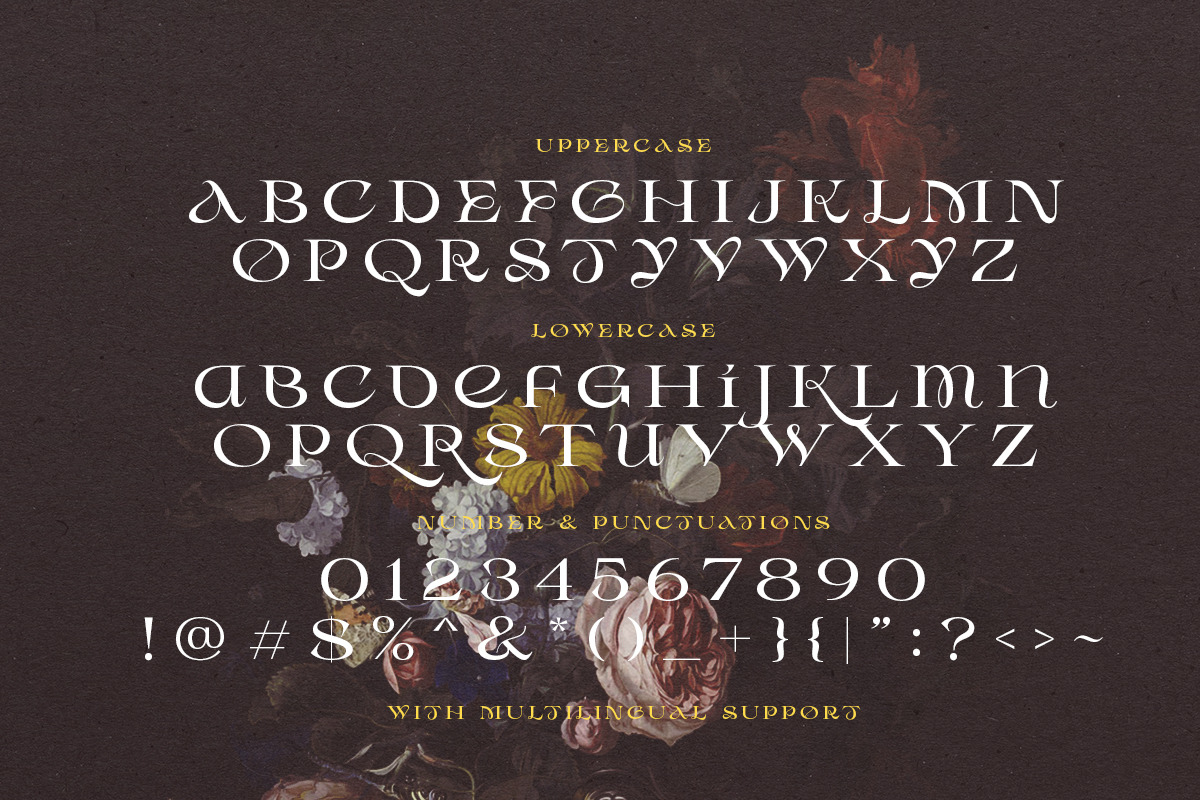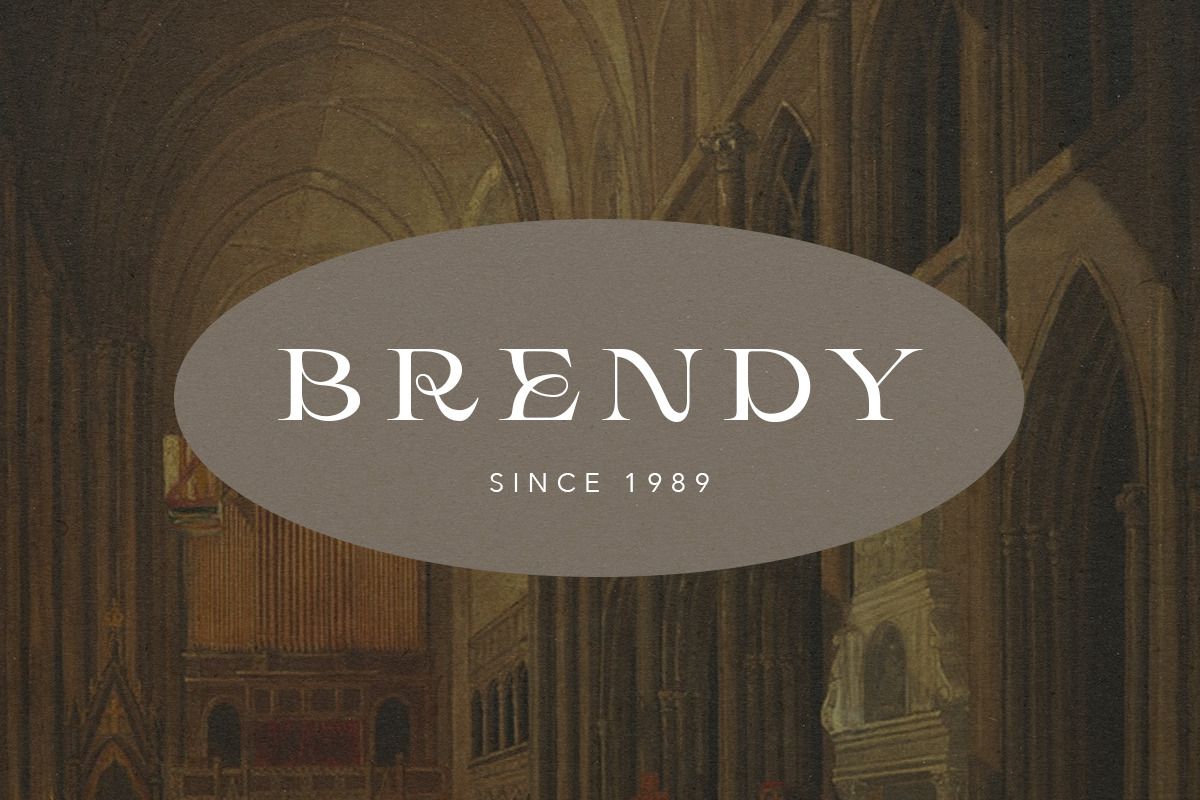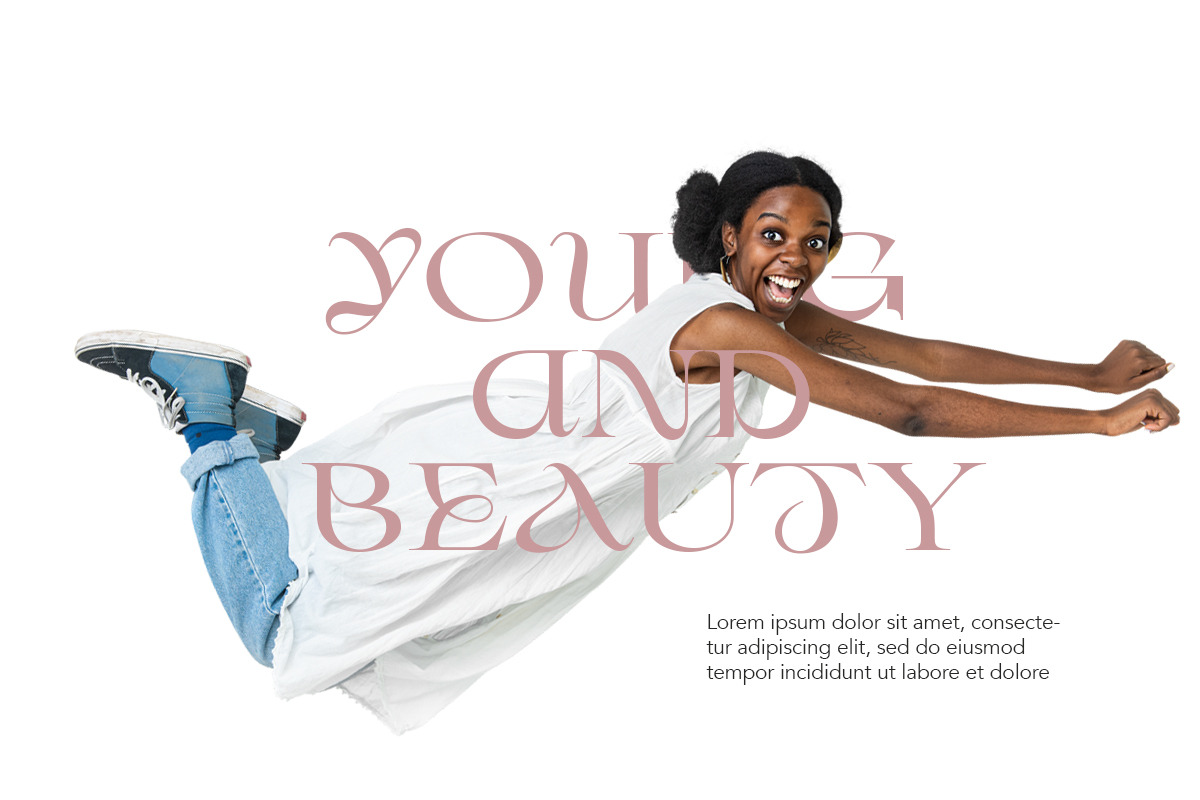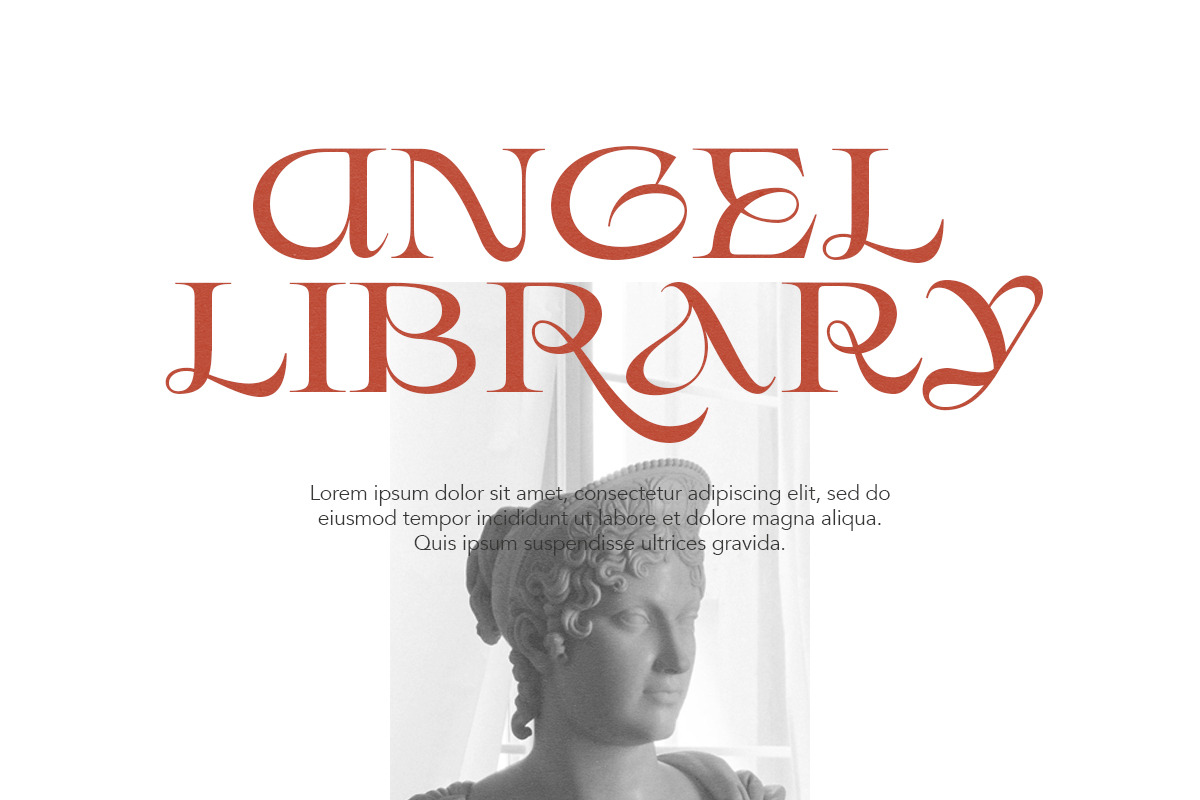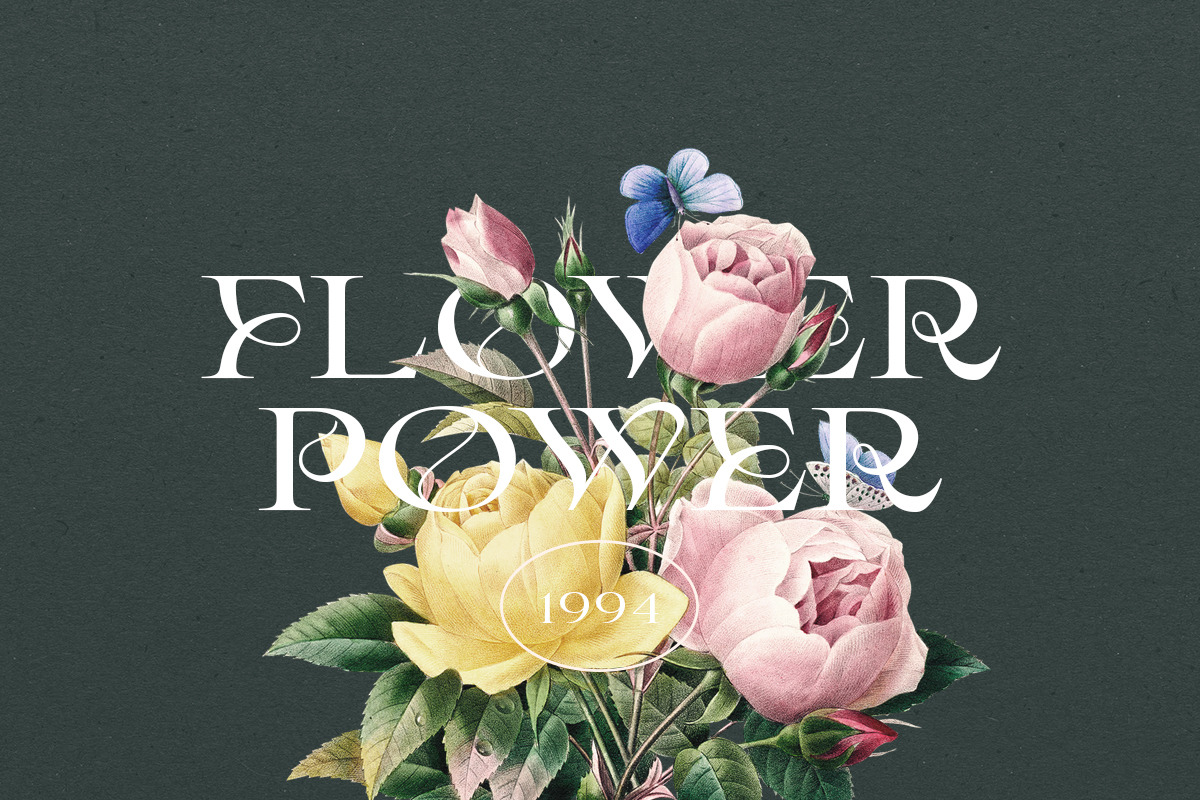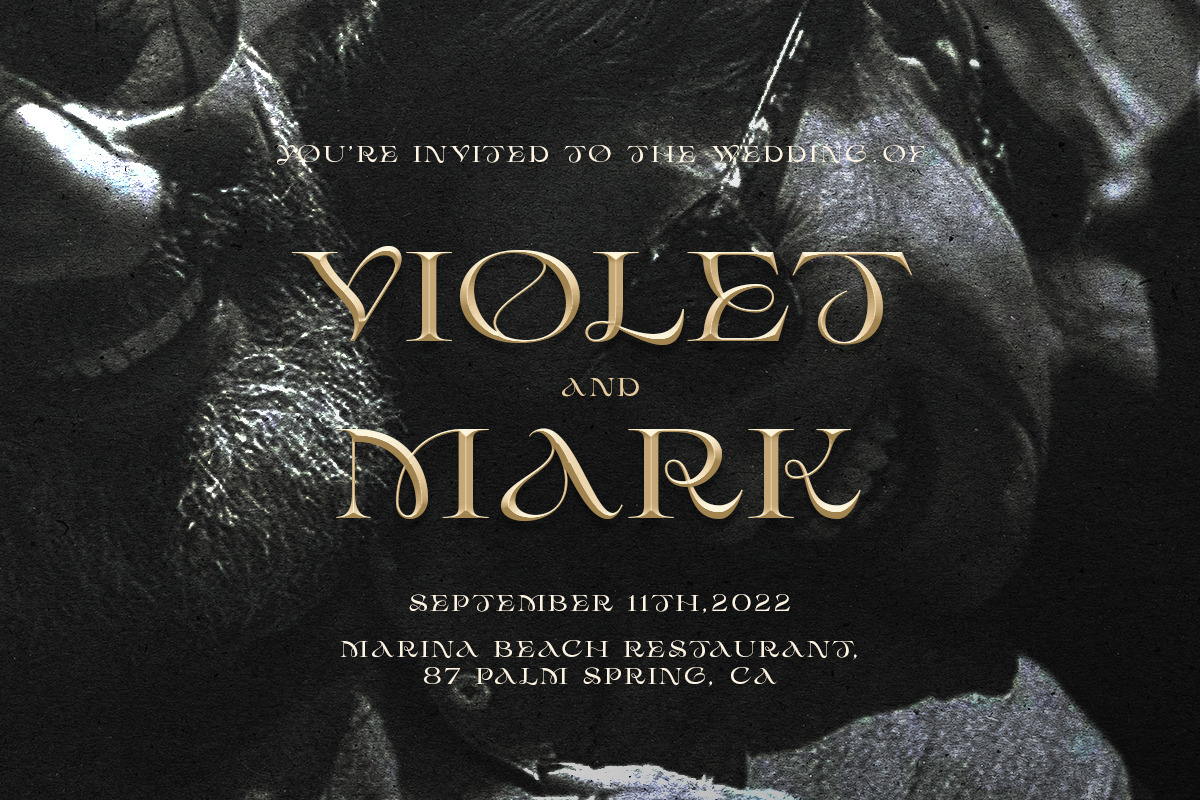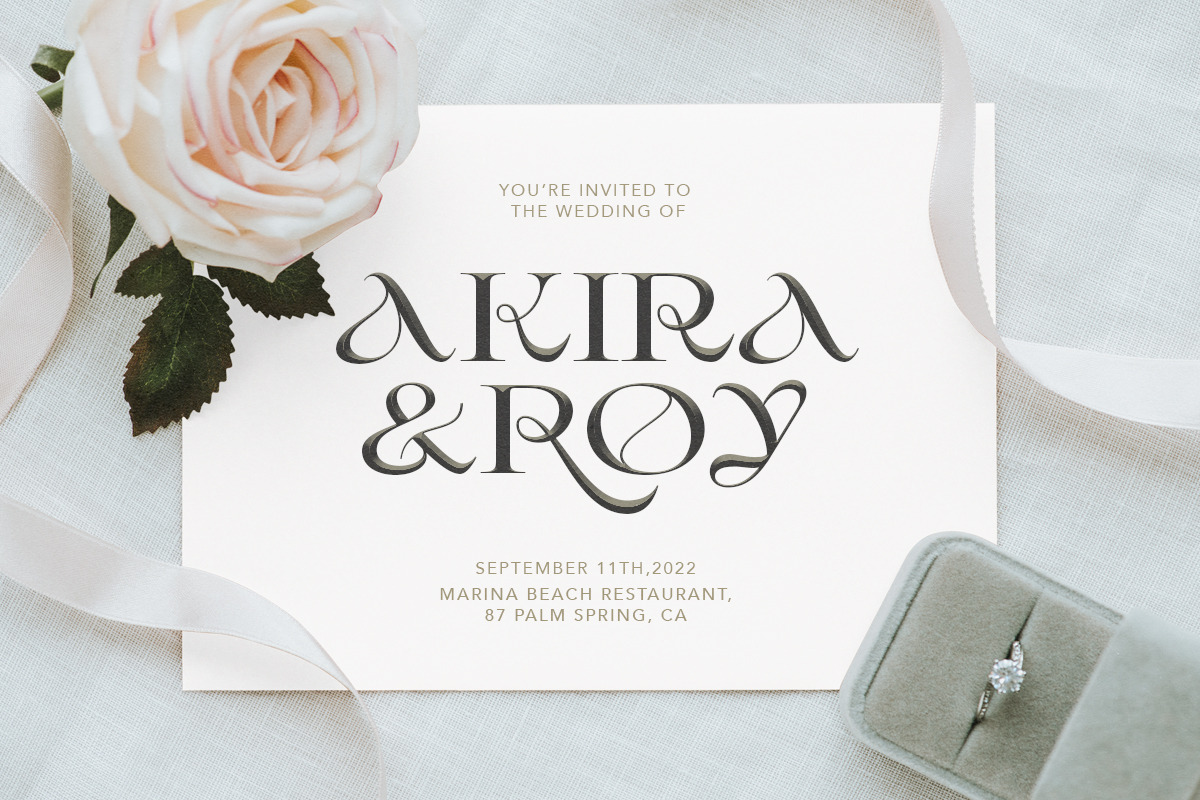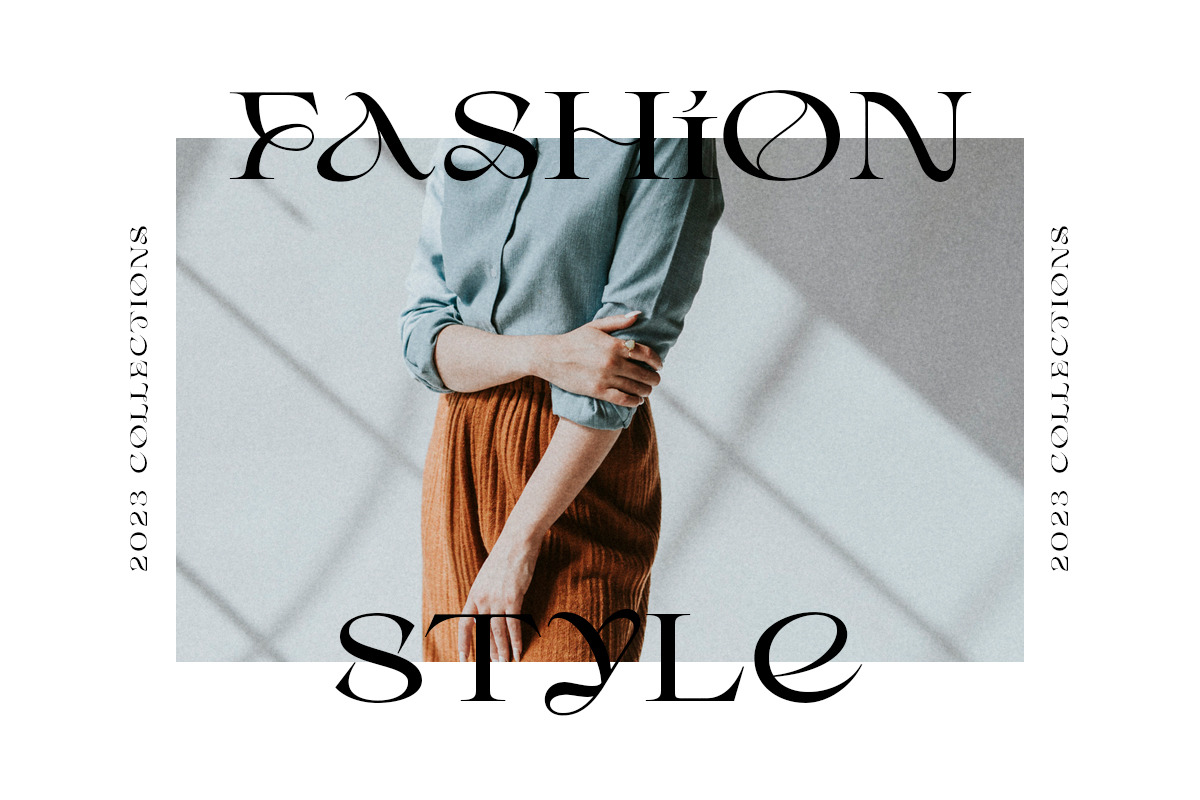
Desira - Attractive Serif
Desira is an attractive and modern serif that comes with stylish shape. With unique uppercase and lowercase, this fonts will make your presentation, poster, or logo even more stunning and stand out! You can mix and match the uppercase and lowercase for unlimited form. This fonts support Multi Language.
- Uppercase with unique lowercase
- Multi language